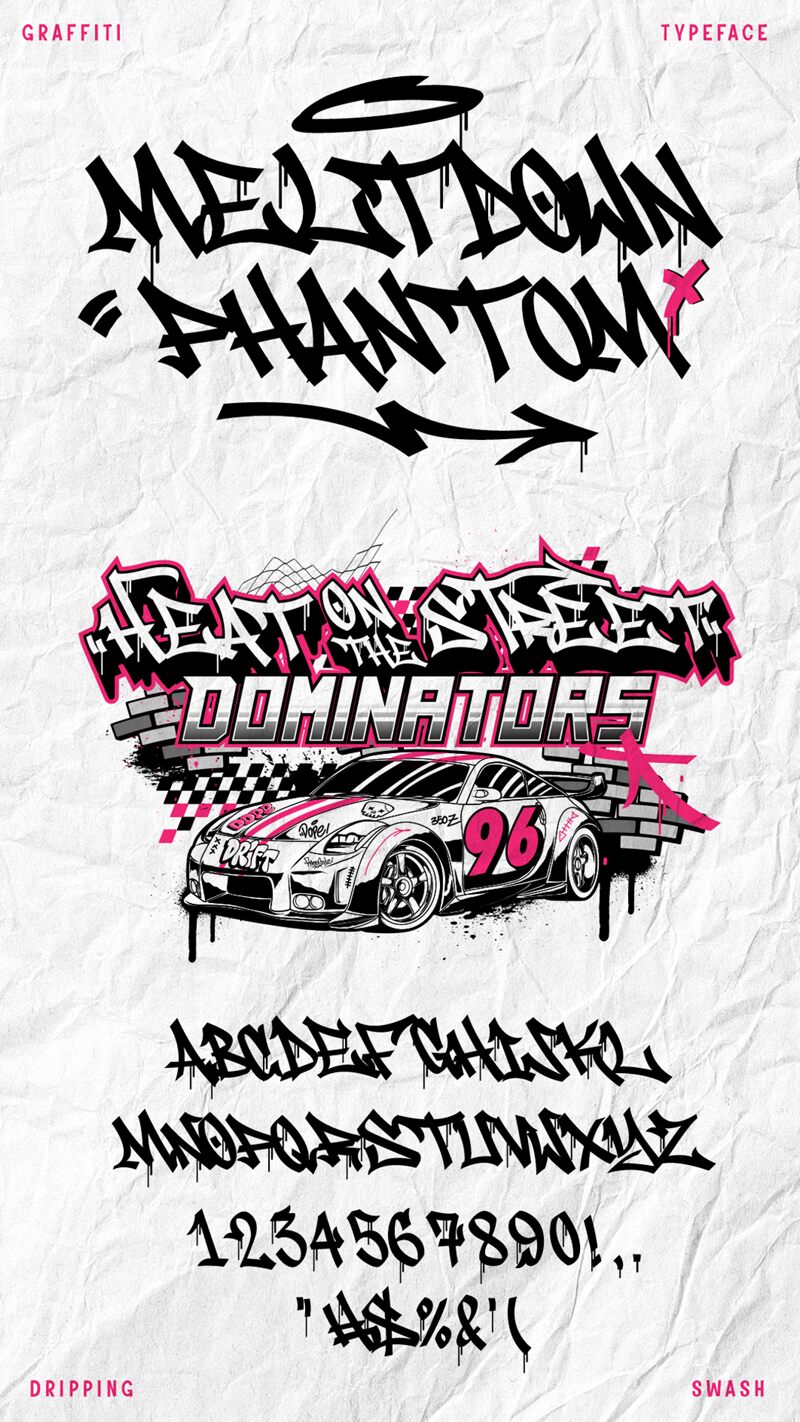
Meltdown Phantom Swash Drip font by Muhammad Panji Ramdhani of Cikareotype from the Meltdown Phantom Swash family is a free graffiti font, a typeface that drips attitude with long, whip-fast swashes and inky streaks that feel like fresh marker on a smooth wall. The strokes snap between razor-thin cuts and bold pools, creating a wild rhythm that still reads as a single, flowing tag.
Using Meltdown Phantom Swash Drip shines on streetwear logos, album covers, skate posters, YouTube thumbnails, event flyers, and edgy sticker packs, and it also hits hard on game title cards and social headers. Keep it large so the drips breathe, and pair this free font with a clean condensed sans for the supporting details.